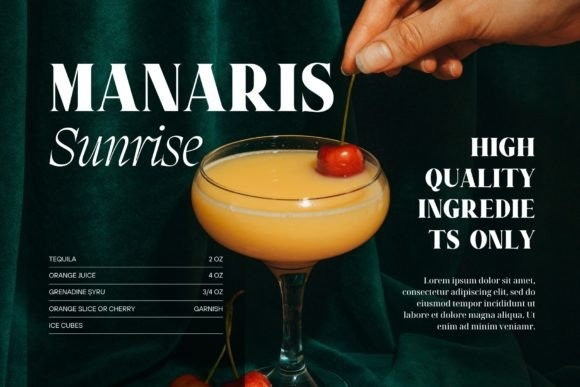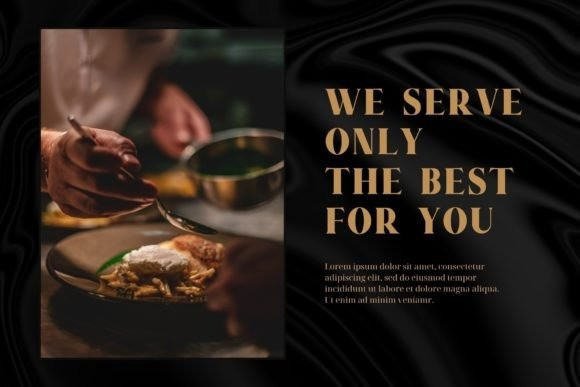
Milky Honey Font
Milky Honey Font is a modern elegant serif font that blends classic elements with contemporary design. Its clean and precise lines give it a sleek appearance, while its serifs add a touch of timeless elegance.
It is suitable for a wide range of applications. From high-end branding and editorial designs to sleek websites and luxury product packaging, this elegant serif font adds a touch of sophistication and professionalism to any project.